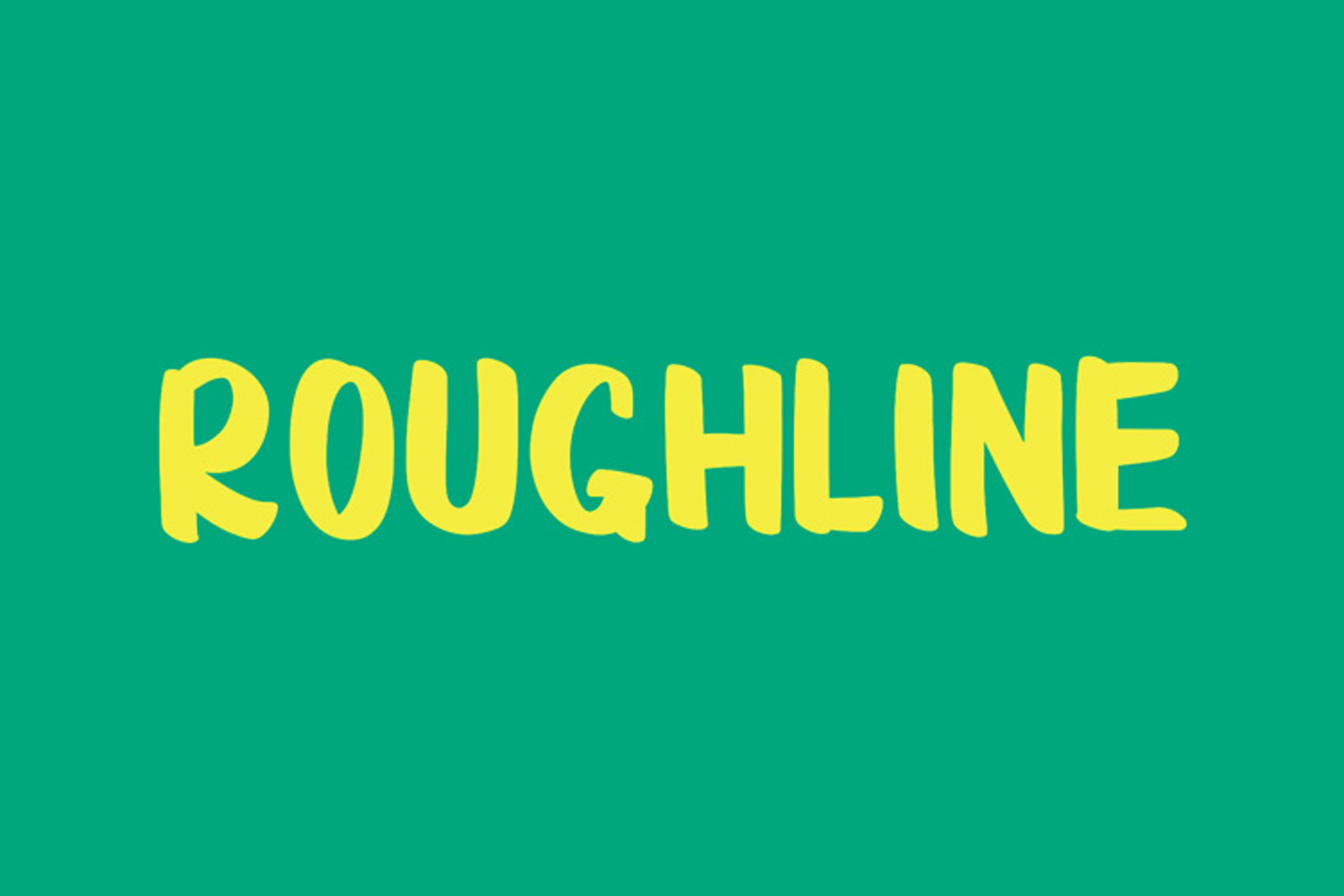
ROUGHLINE - Display Brush Font
ROUGHLINE
A playful and bold brush-style handwritten font with expressive strokes and a fun character. Includes full uppercase letters, numbers, symbols, and multilingual support, making it perfect for logos, posters, branding, social media, packaging, and creative designs. Ideal for modern, cheerful, and eye-catching projects.